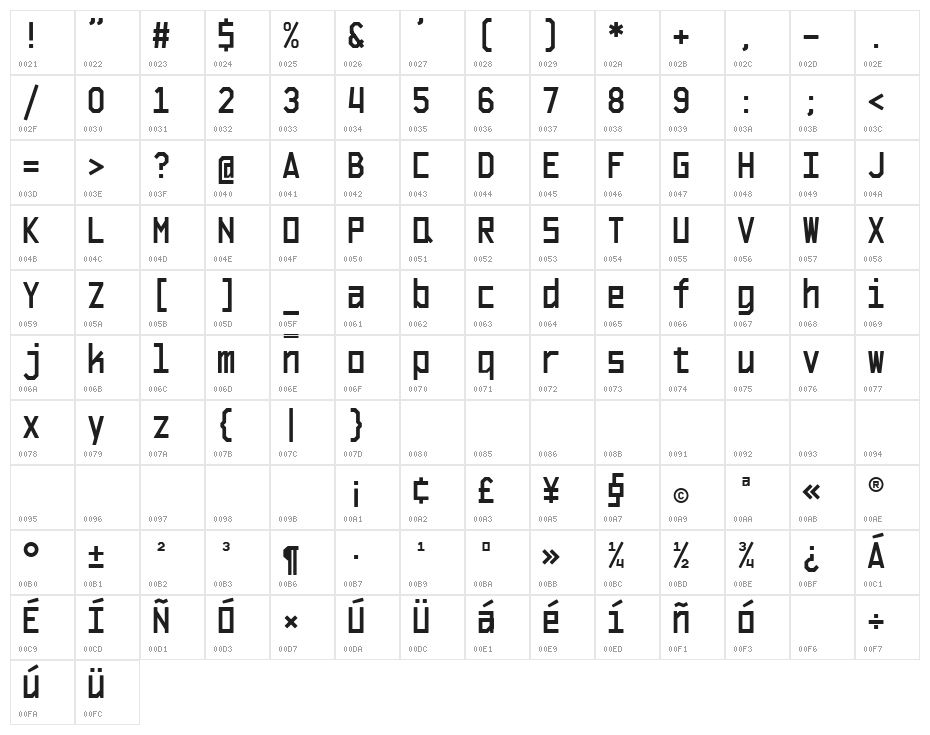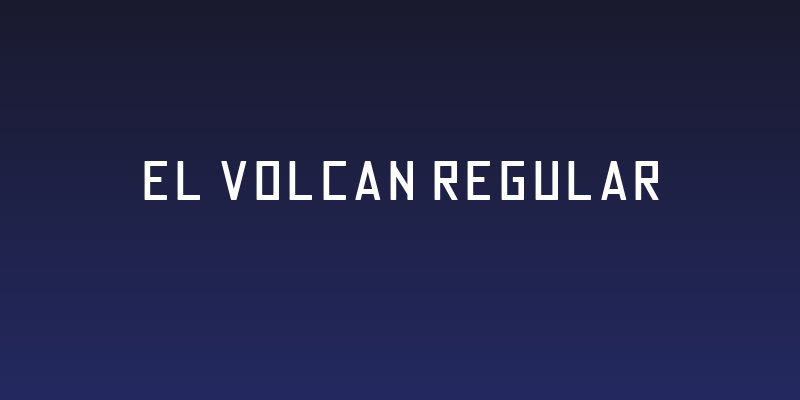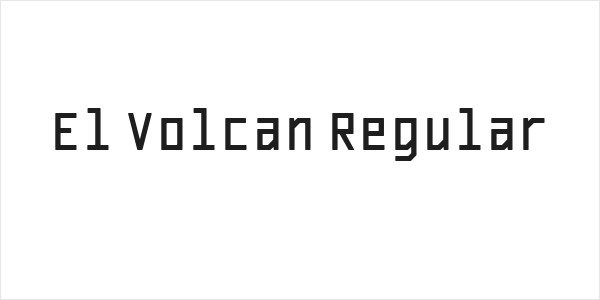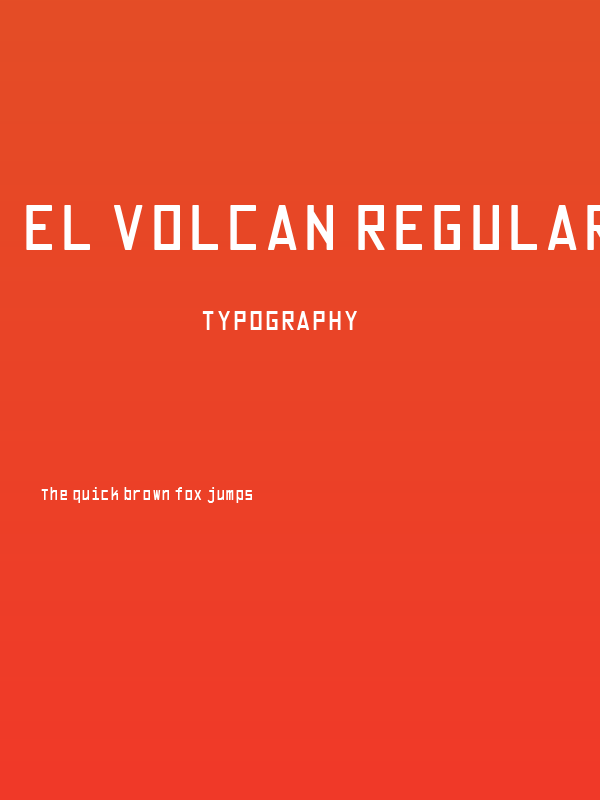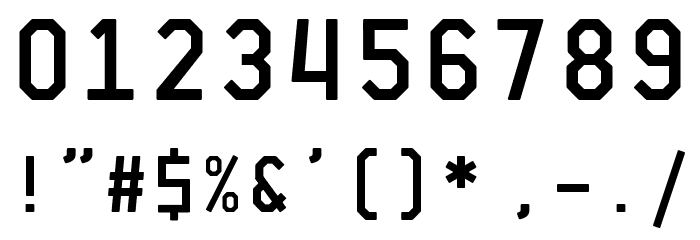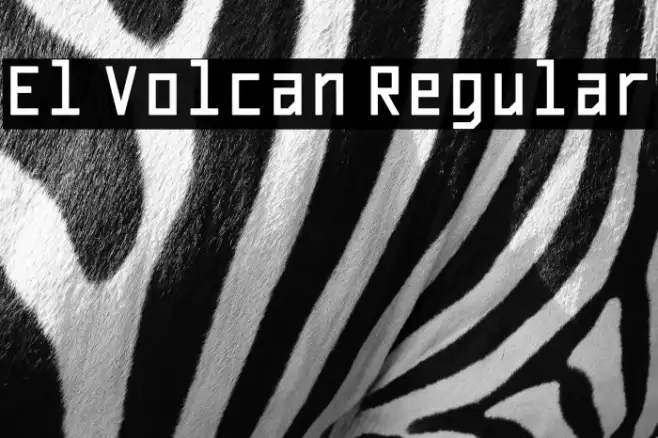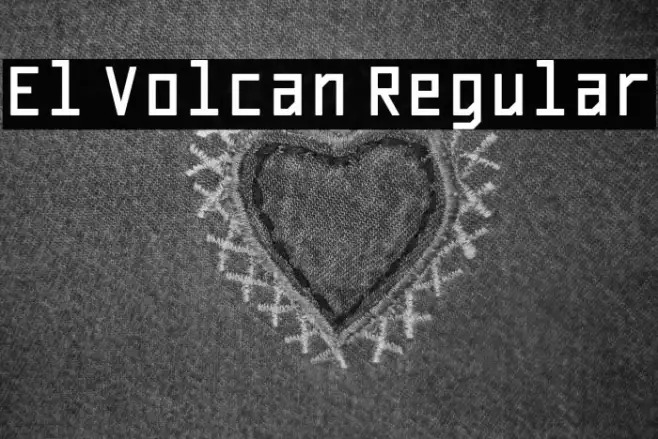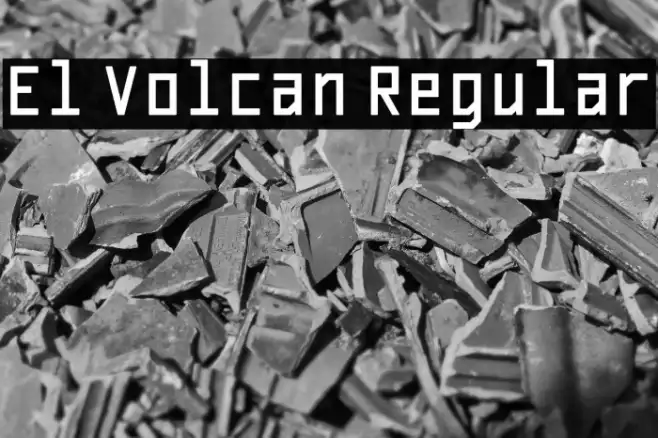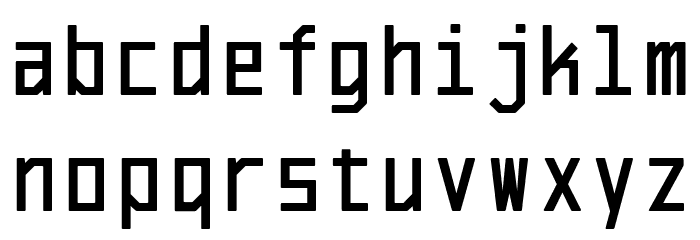
El Volcan Regular Font
El Volcan Regular Description
This font features a bold, geometric style with a modern and slightly industrial feel. The characters are constructed with straight lines and sharp angles, giving it a distinctive, edgy appearance. The uppercase letters are uniform in height, while the lowercase letters maintain a consistent baseline, enhancing readability. Numbers and special characters follow the same geometric pattern, ensuring a cohesive look across all glyphs. The font's design is clean and uncluttered, making it suitable for a variety of applications where clarity and impact are desired.
| Proposed Projects | Ideal for branding, posters, headlines, and digital interfaces where a strong, modern aesthetic is needed. |